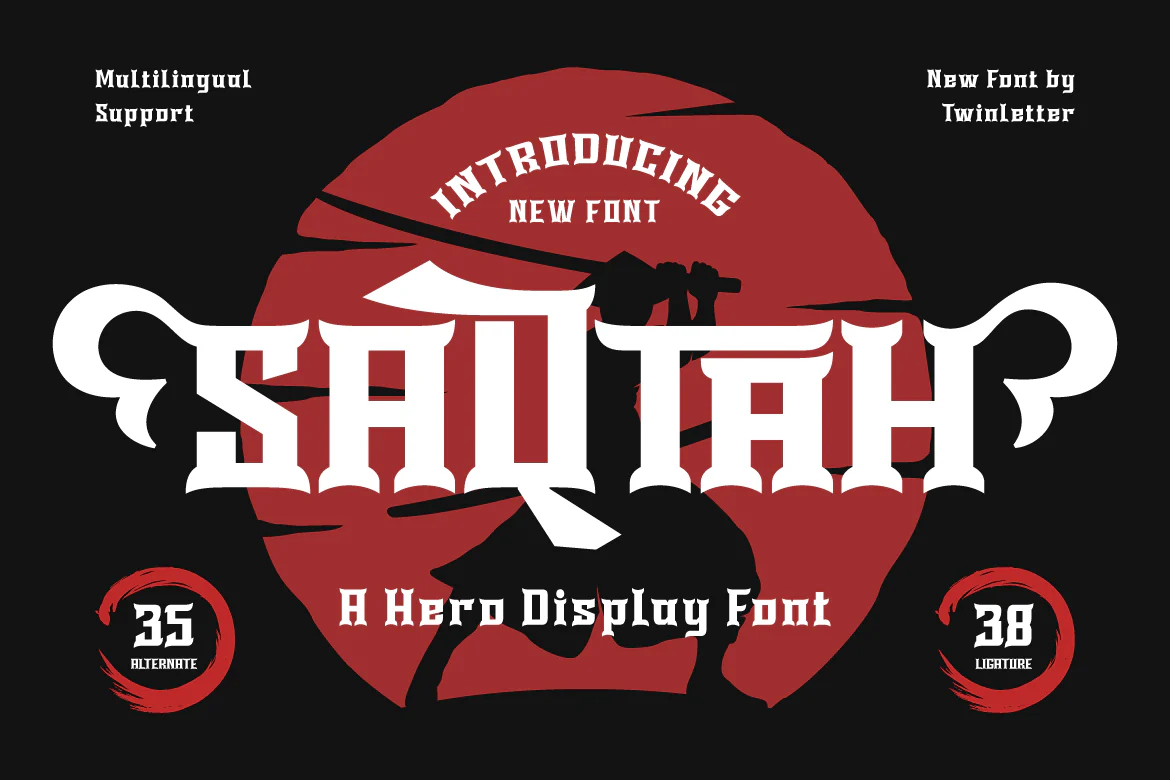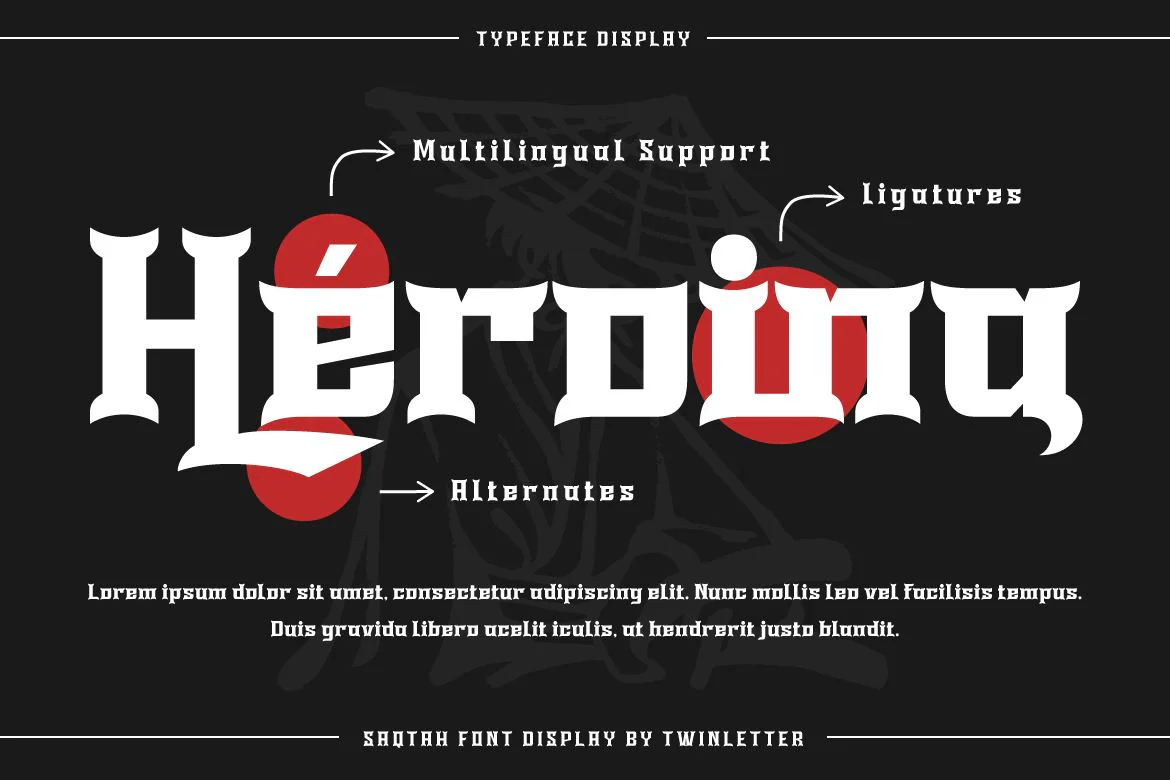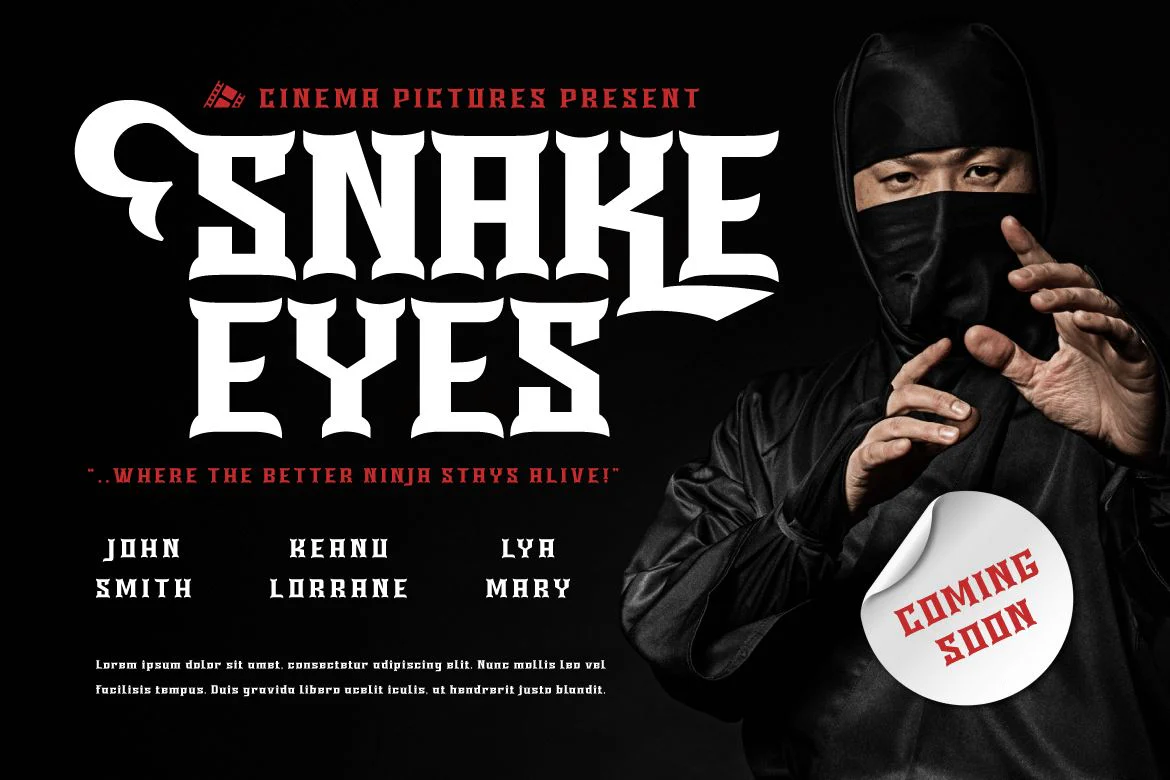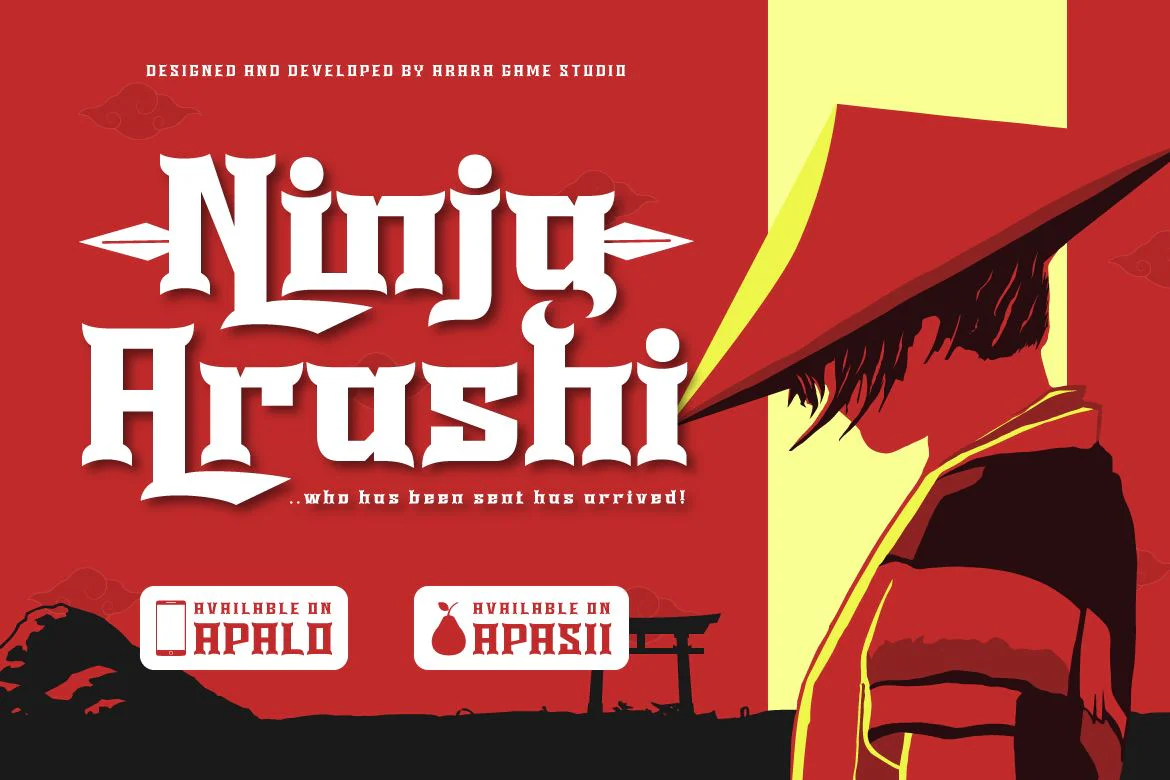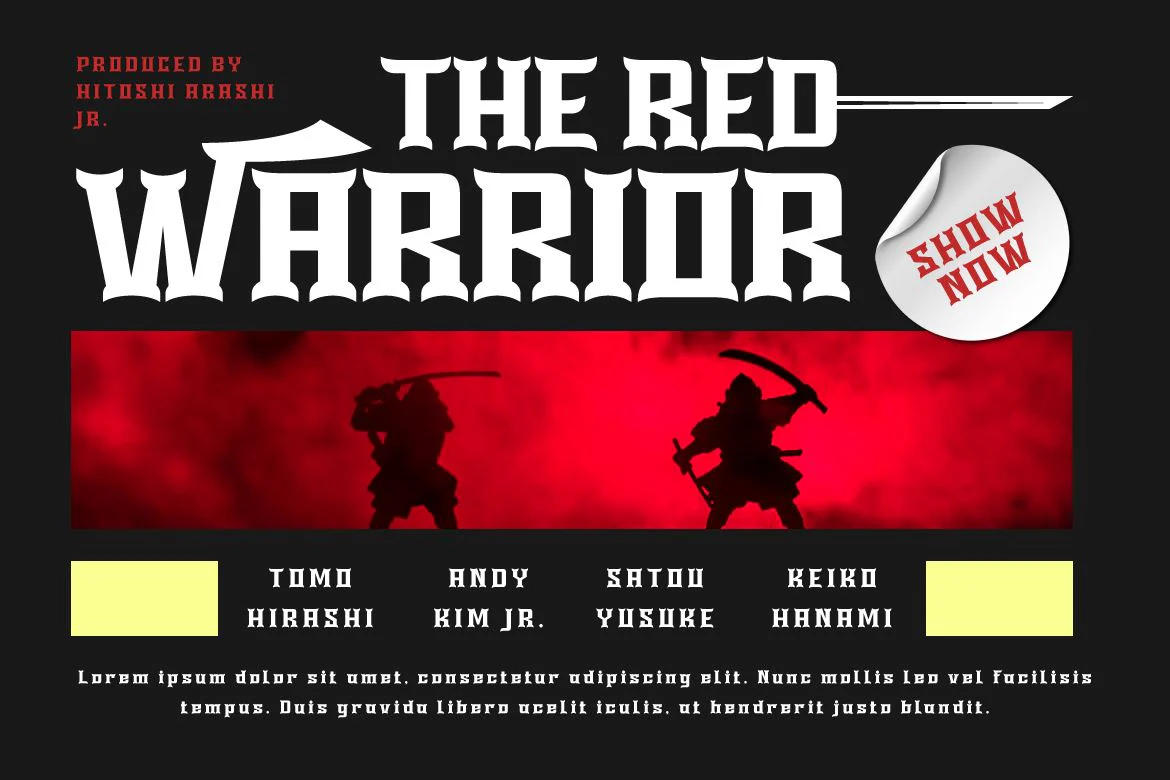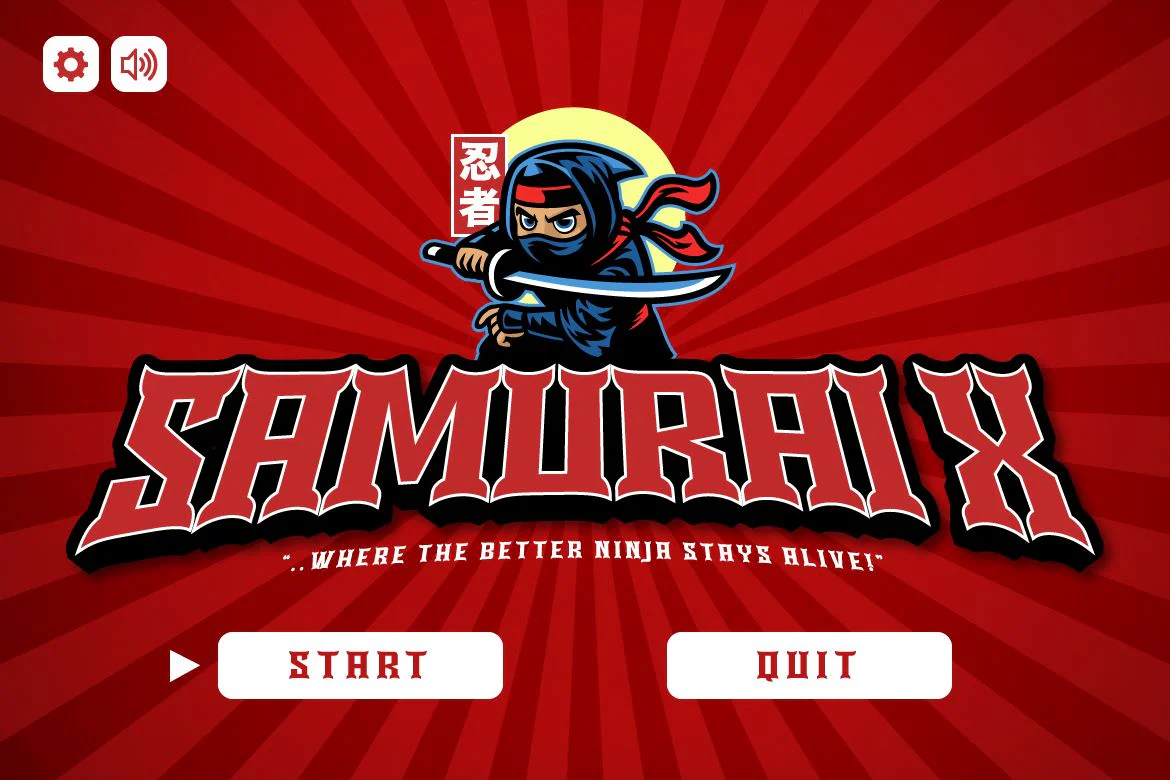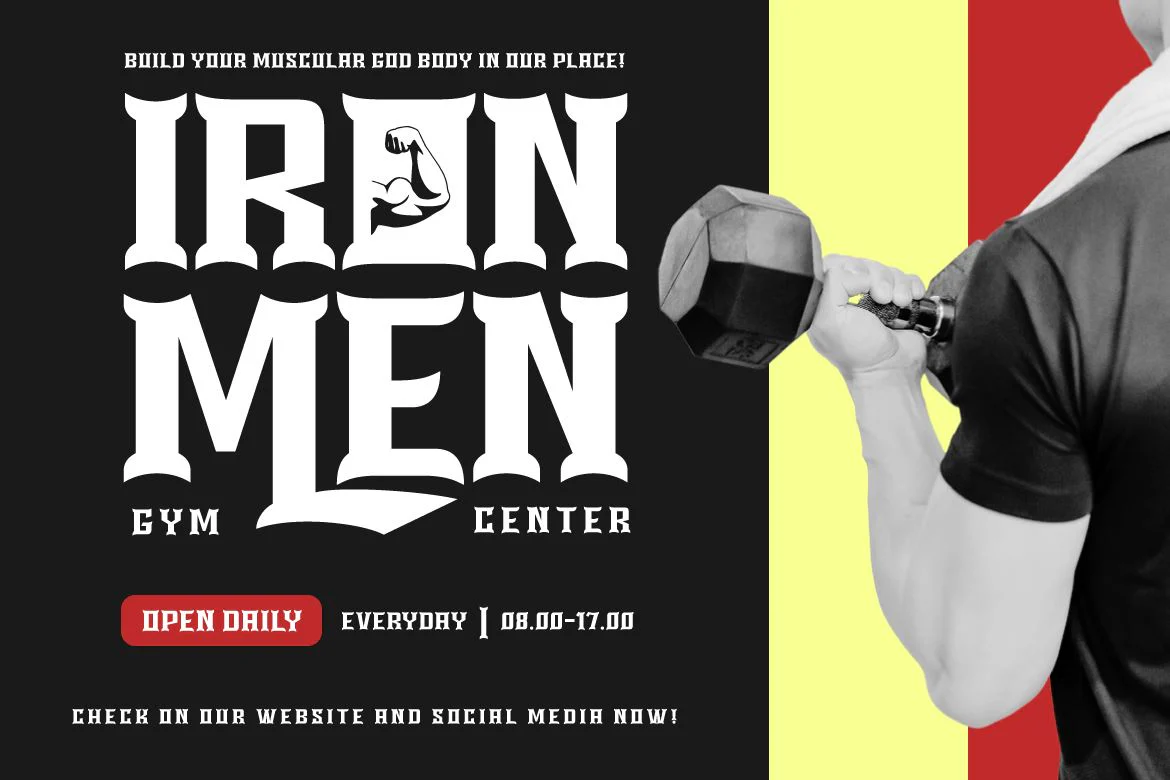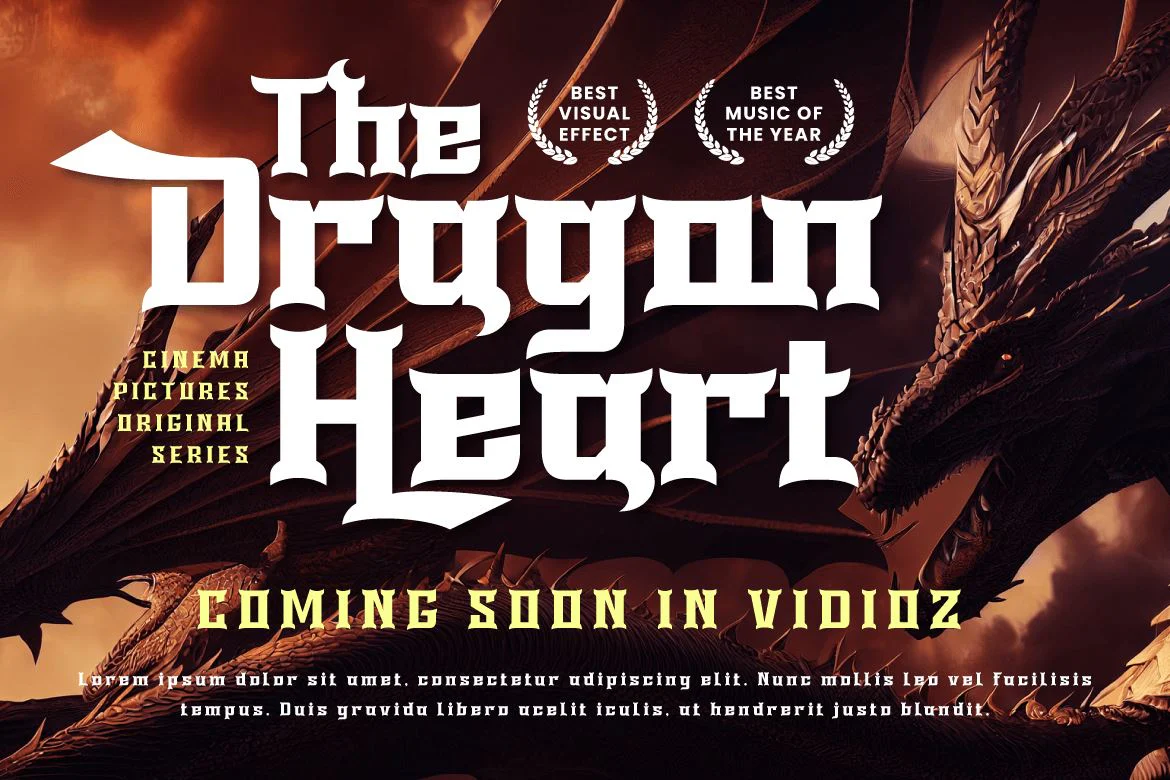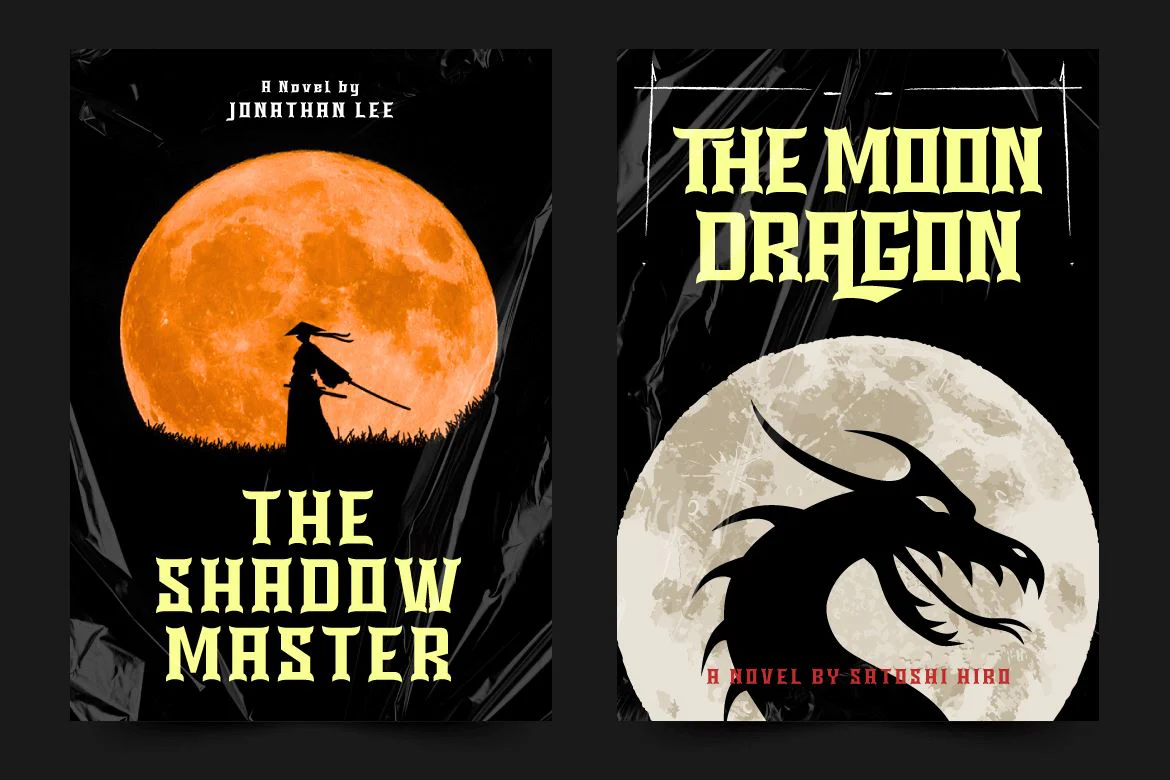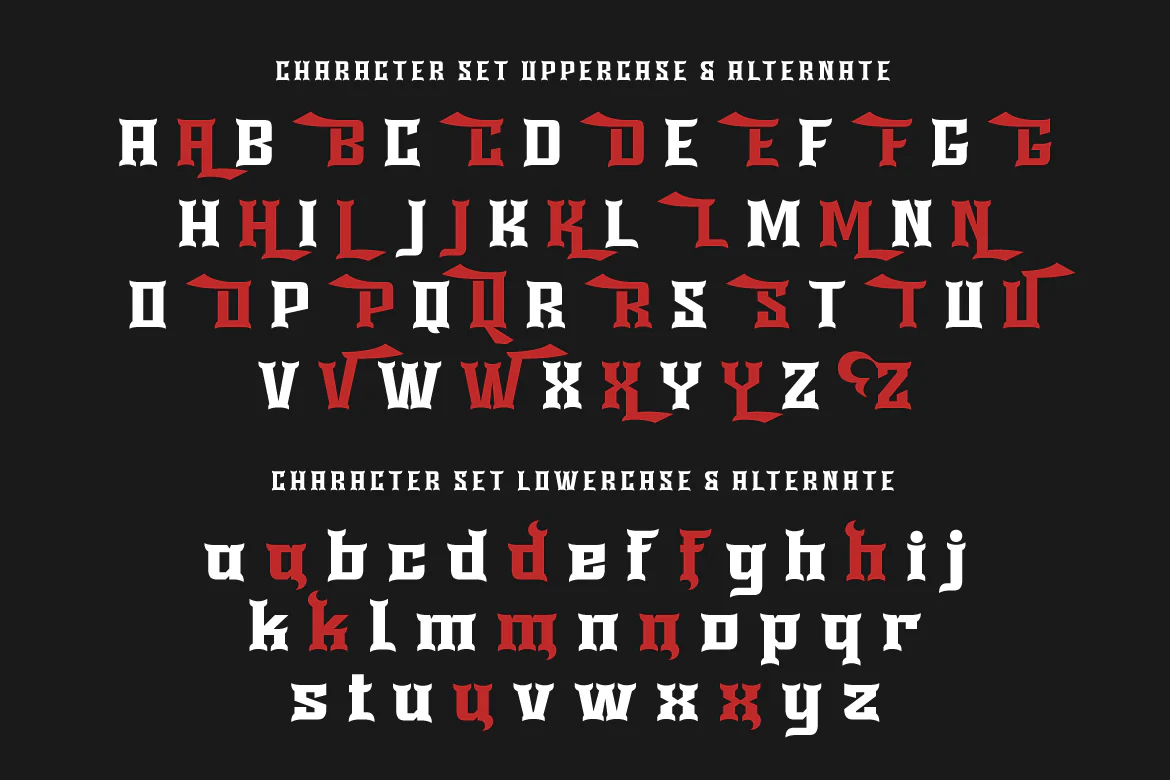
SAQTAH | Display Hero Font
Welcome to the world of Saqtah! A display font with a superhero style that will bring strength and courage to your projects. Whether you’re working on a film, game, or design with a strong and bold theme, Saqtah is the perfect solution for you. With a stunning appearance, Saqtah will be the main highlight in every design. Each letter is filled with strength and thickness, creating a powerful and impressive look.
However, the advantages of Saqtah do not stop there. This font is also equipped with special features. Alternate ligatures and characters allow you to create unique and creative typographical combinations, providing endless possibilities for the expression of your designs. Apart from that, Saqtah also supports multiple languages, so that your message can be well received by audiences from various countries.
Make Saqtah your choice and give your project a hero touch. With the strength and boldness that this font has, you can create a bold and unforgettable look, captivating the heart and eye of every viewer. With its special features, Saqtah provides unlimited flexibility and creativity. Let’s be creative and bring an awesome impression with Saqtah in your project.